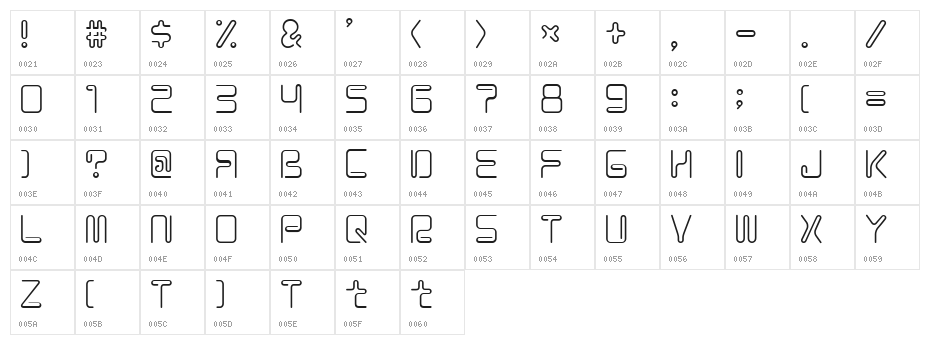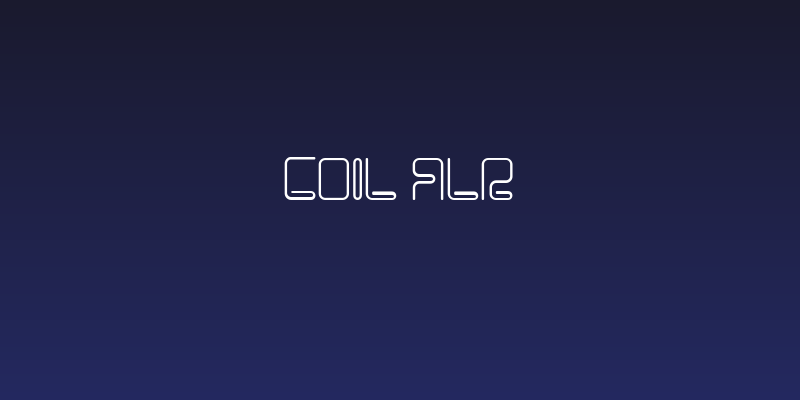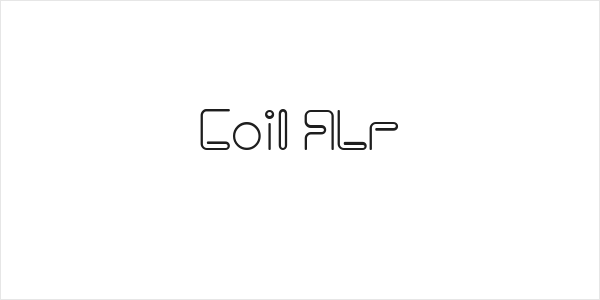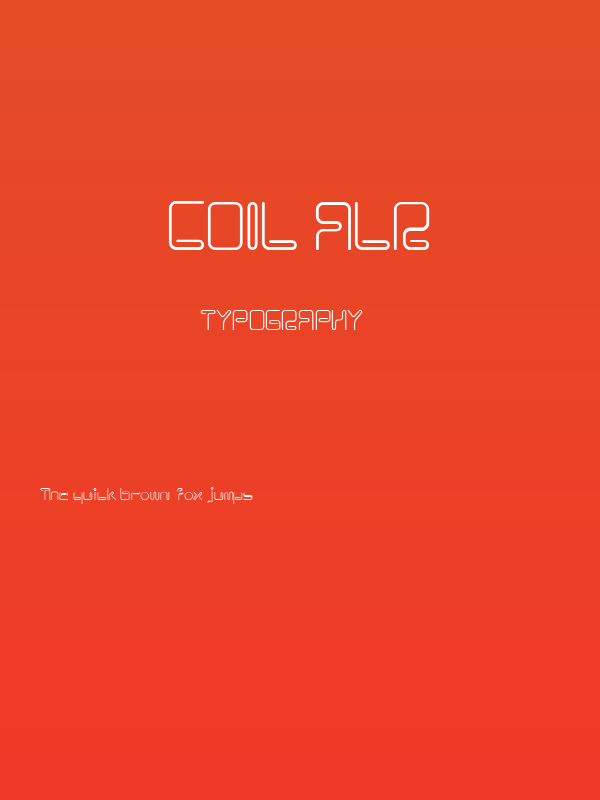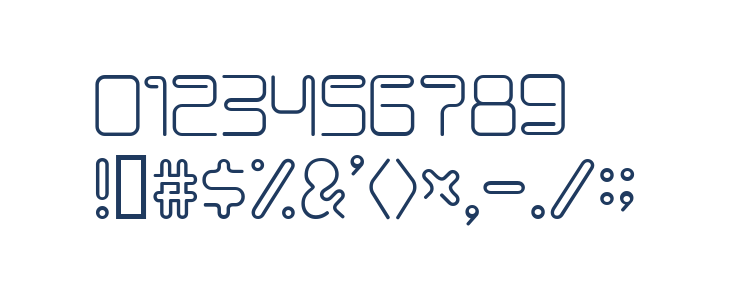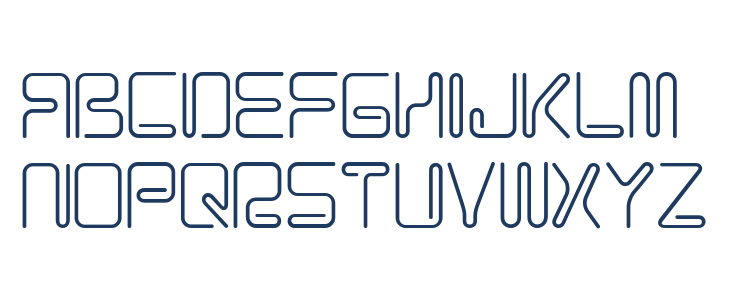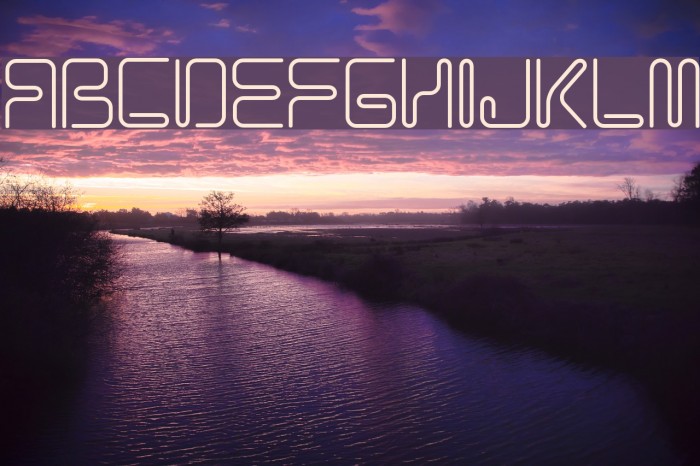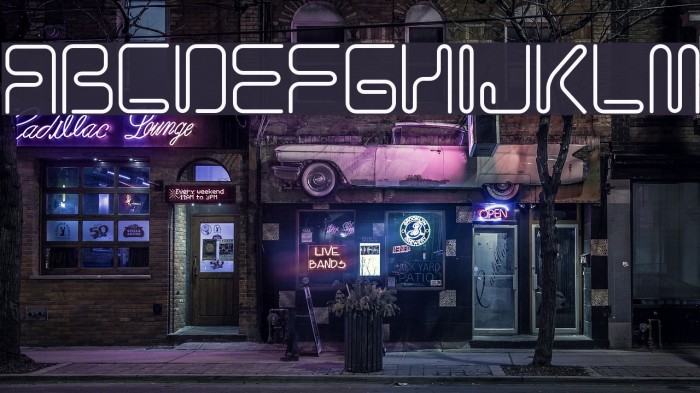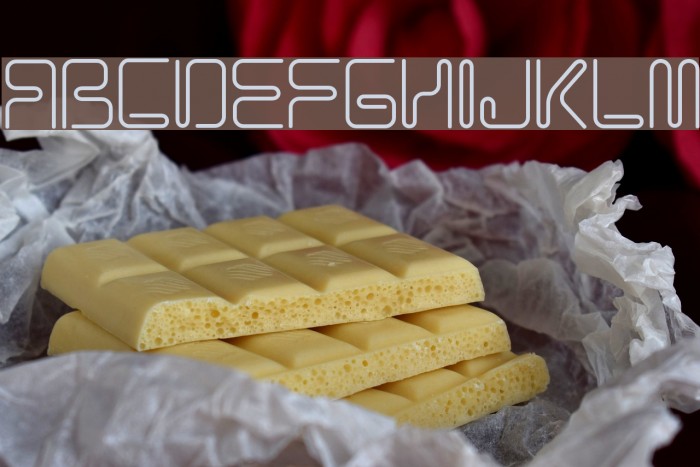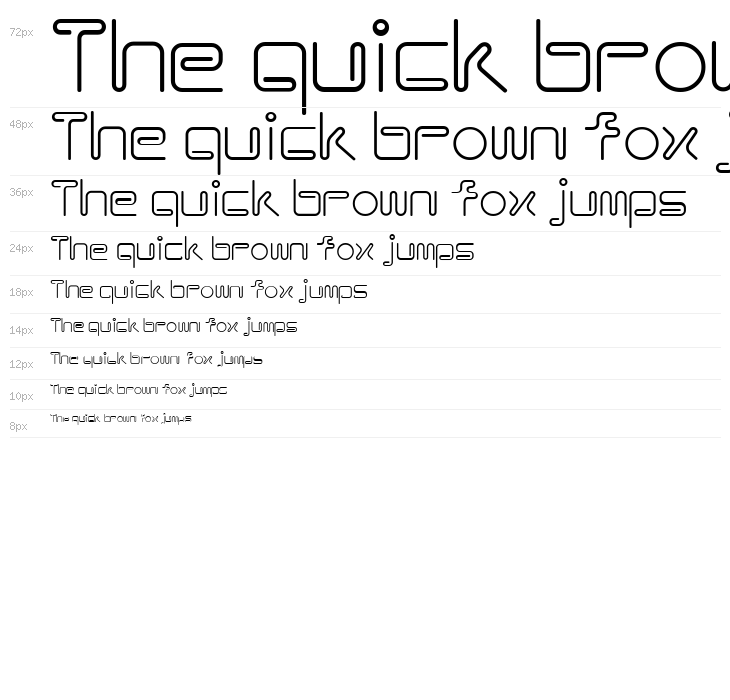
Coil ALr Font
Coil ALr Description
This font features a modern, geometric design with a futuristic aesthetic. Each character is constructed with a continuous line that forms a unique, tubular appearance. The uppercase and lowercase letters maintain a consistent style, with rounded edges and a uniform stroke width. The numerals and special characters follow the same design principles, ensuring a cohesive look across all glyphs. The font's open and airy structure gives it a distinctive, tech-inspired feel, making it suitable for contemporary and innovative design projects.
| Use Case | Logos, Headlines, Digital Interfaces |
| Proposed Projects | Ideal for tech branding, futuristic posters, digital interfaces, and innovative product packaging. |